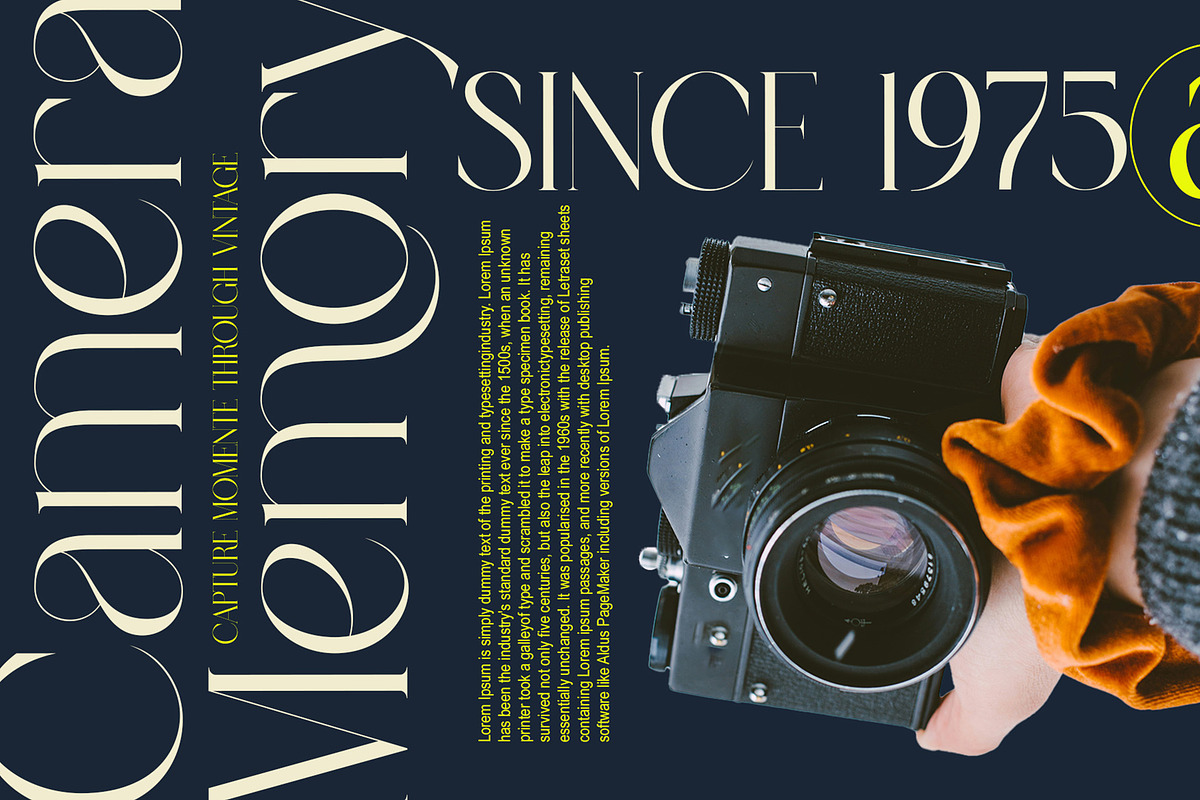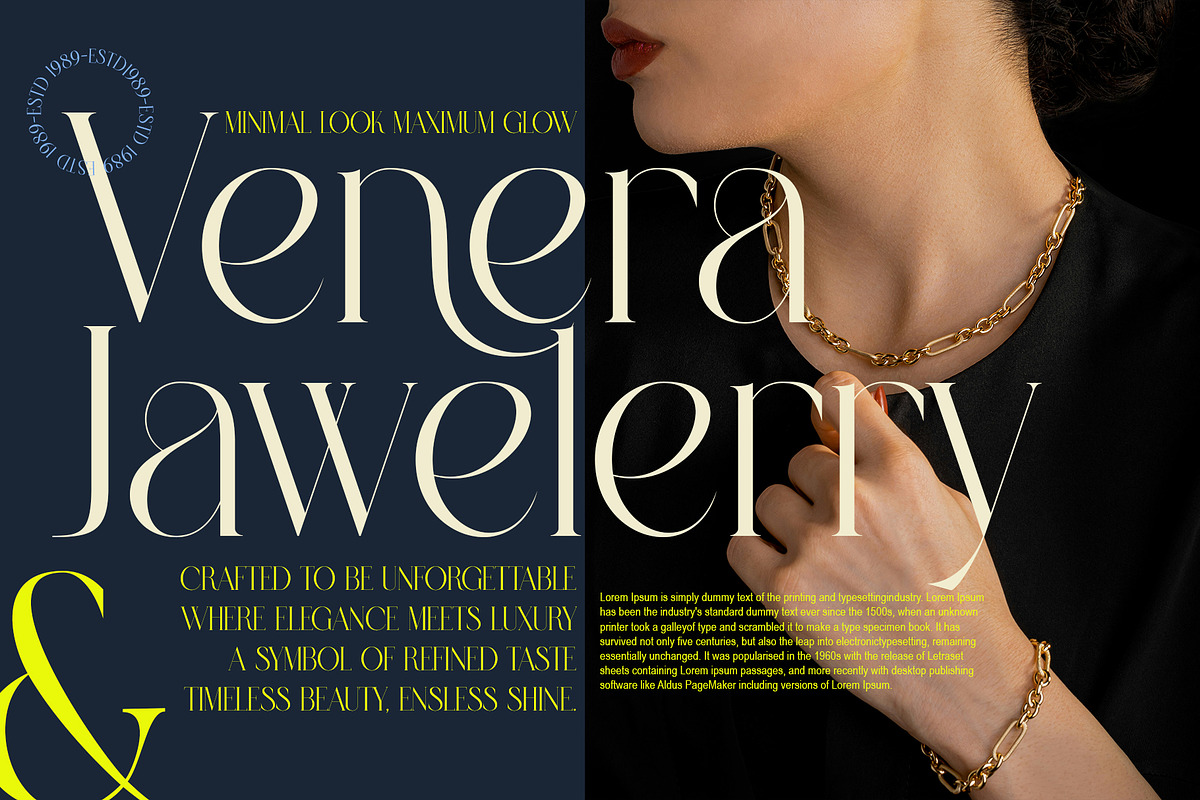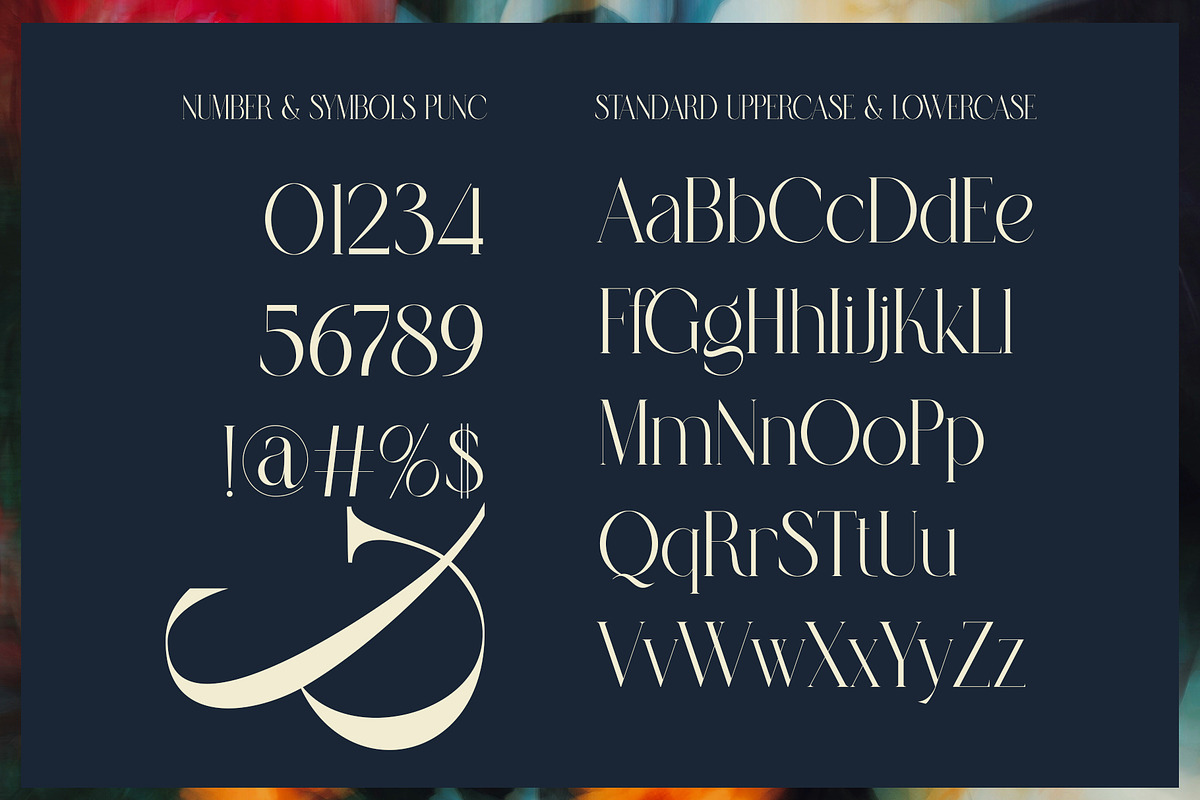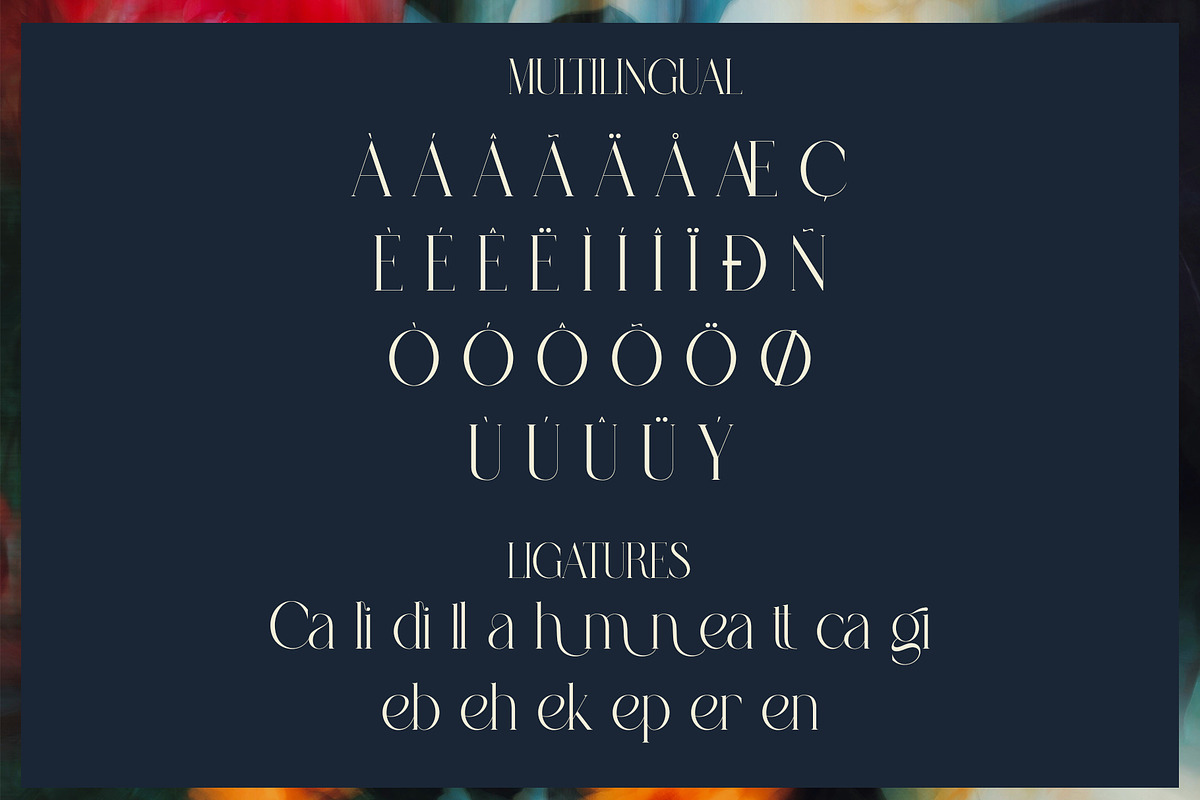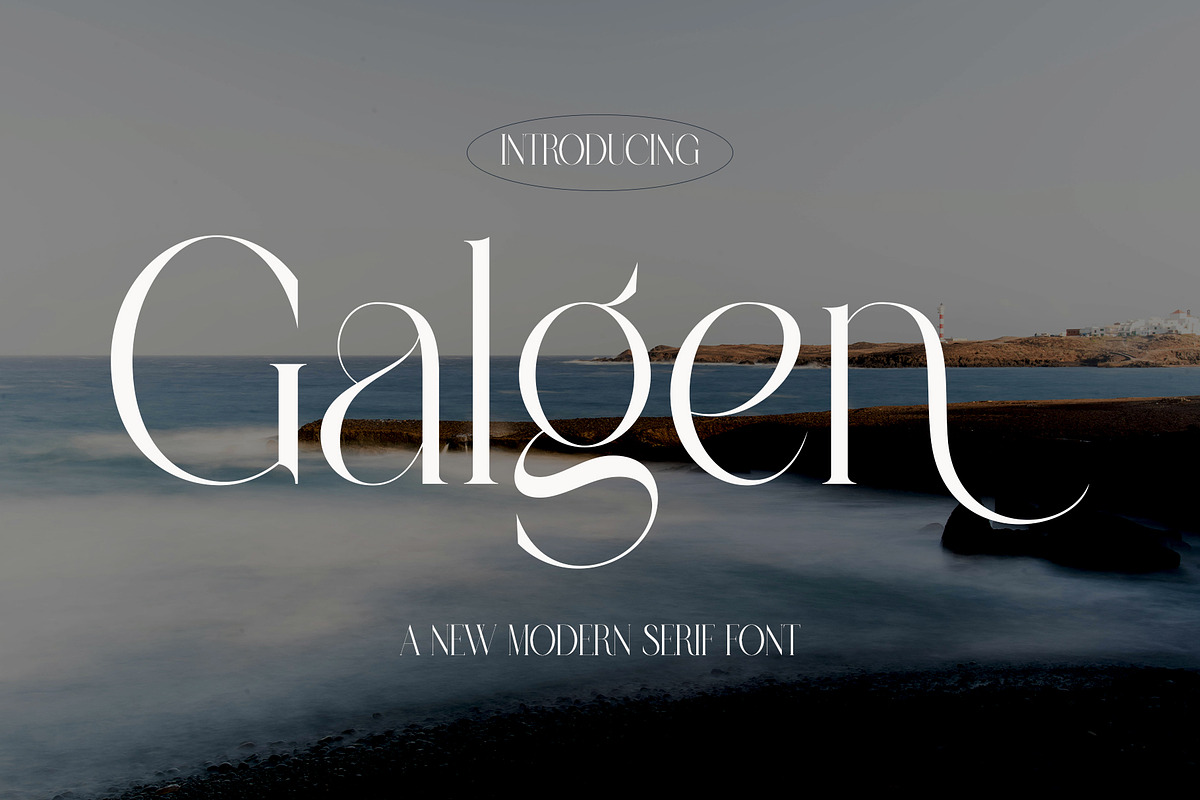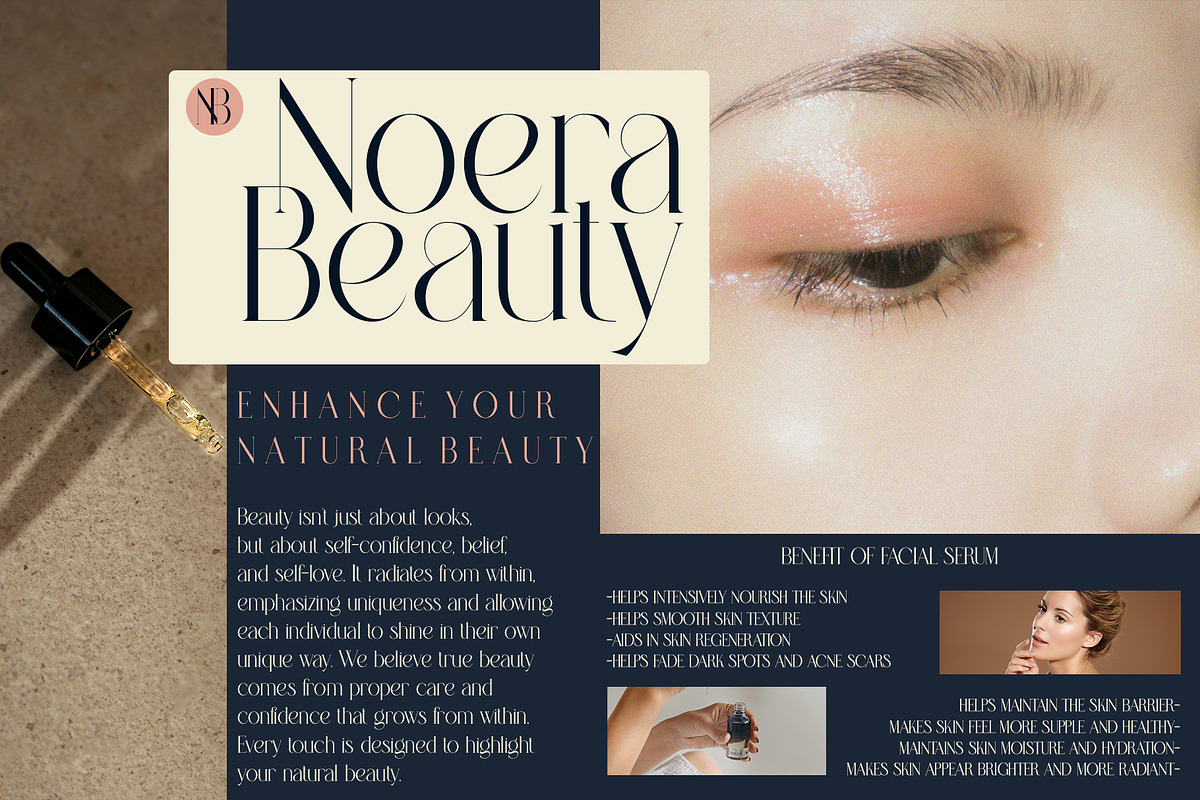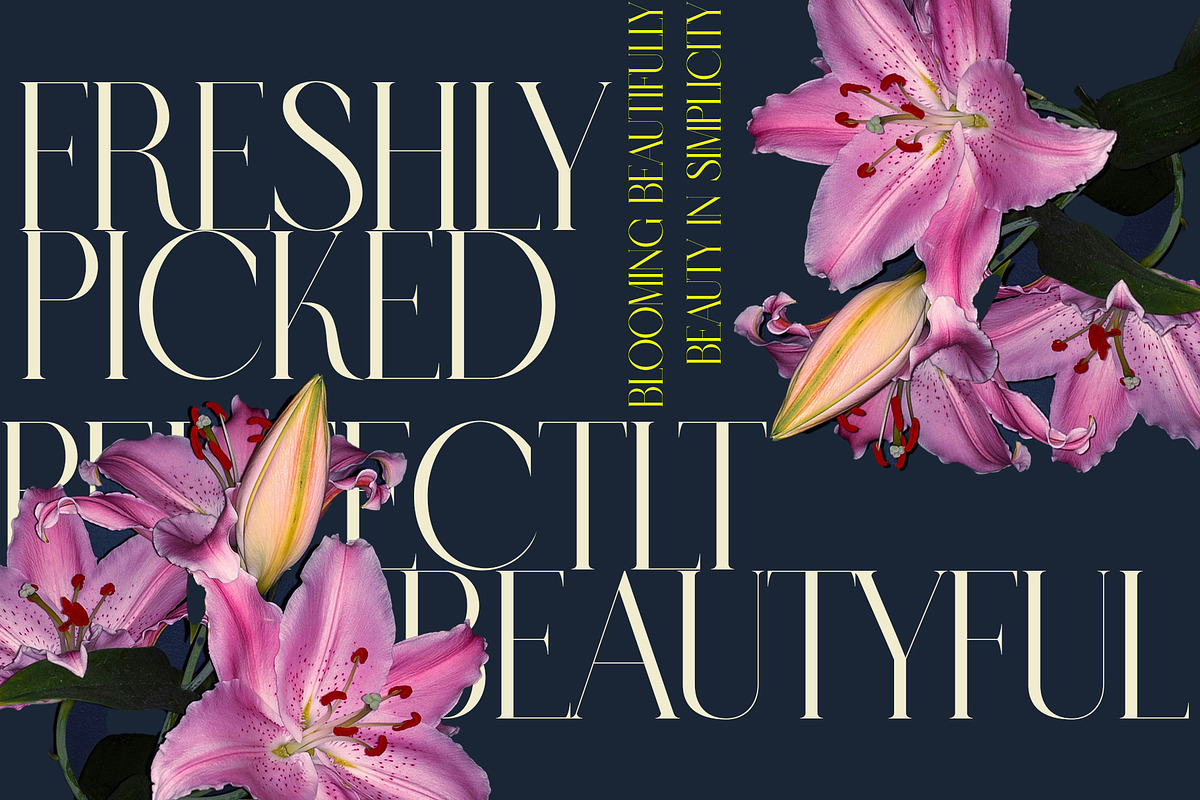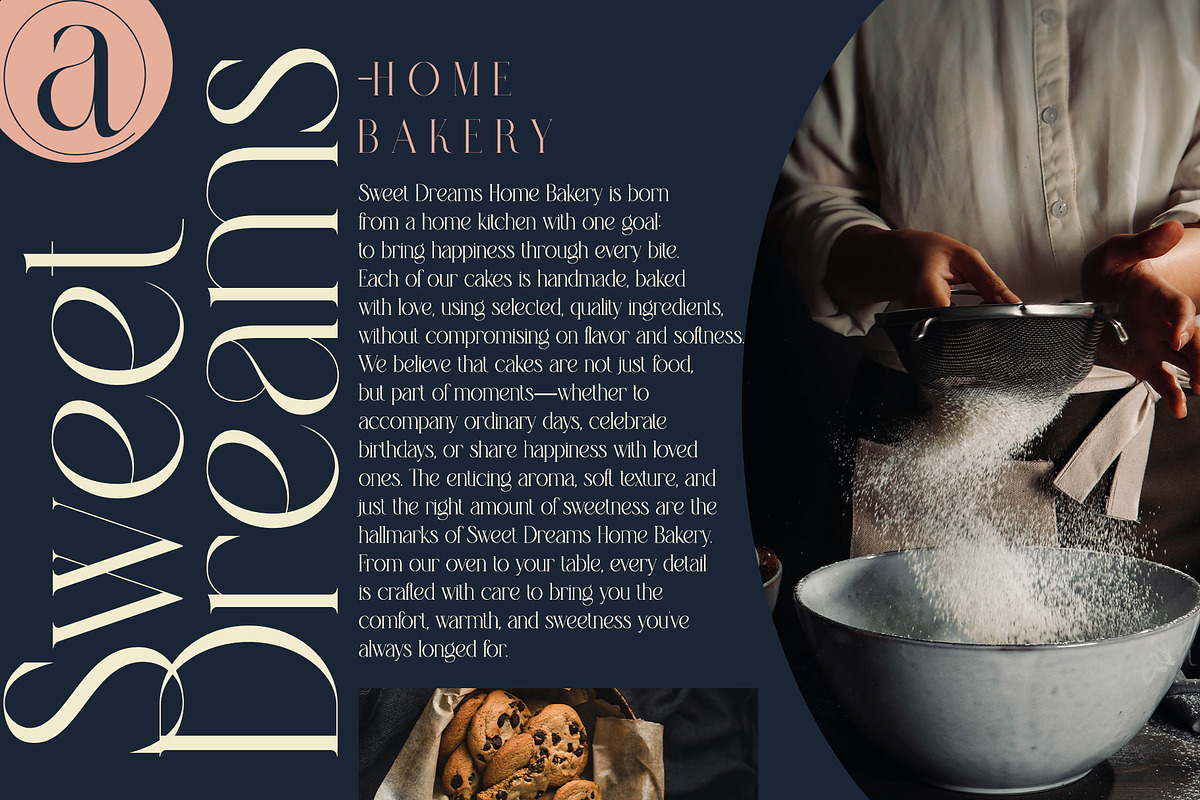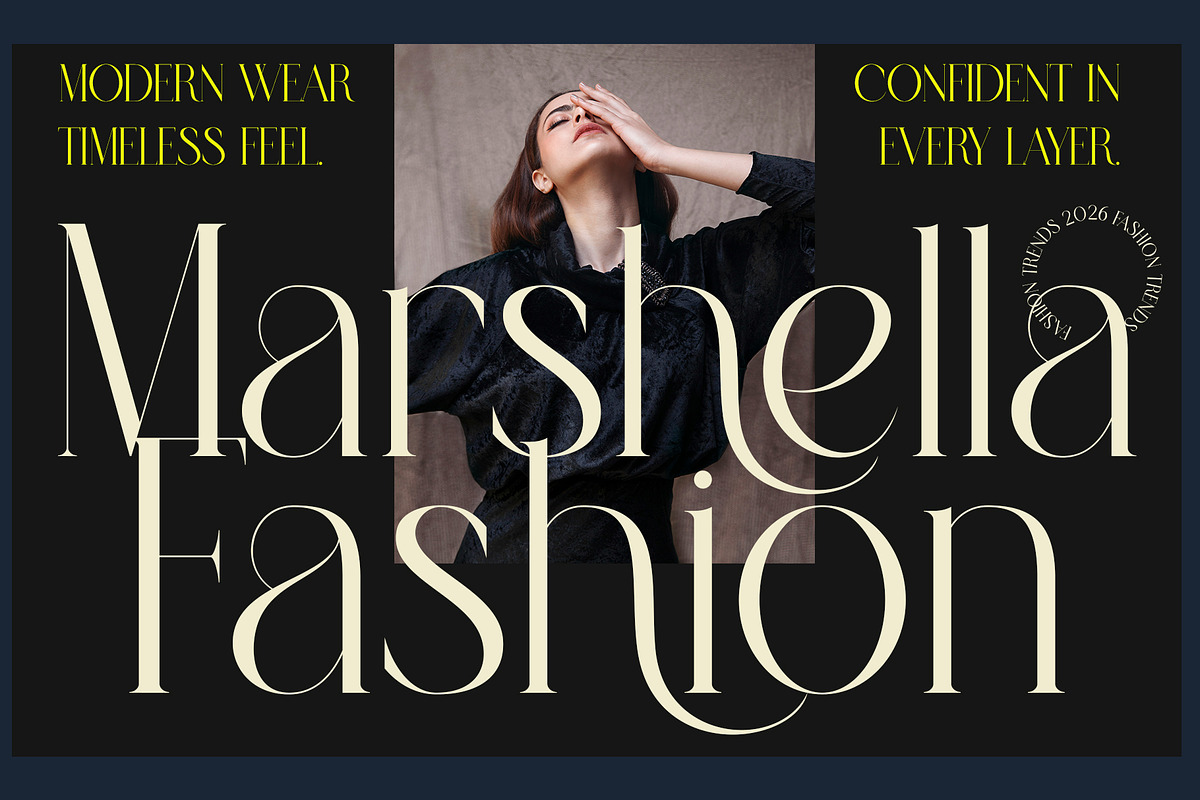
Galgen Modern Serif Font
Galgen an elegant ligature serif modern font that evokes the beauty of fresh blooms and timeless elegance. With its bold yet refined ligatures, Galgen stands out as a sophisticated and feminine typeface. Perfect for upscale designs, whether for florals, fashion, or high-end branding, Galgen pairs the charm of classic serif styles with a modern twist. Every letter feels intentional, with a soft and graceful presence that elevates any project it touches.
Bring a touch of refinement and natural grace to your work with Galgen . Let this font breathe elegance into your designs, and watch them flourish with style and character. Accessible in the Adobe Illustrator, Adobe Photoshop, Corel Draw. PUA Encoded Characters - Fully accessible without additional design software. Fonts include multilingual support